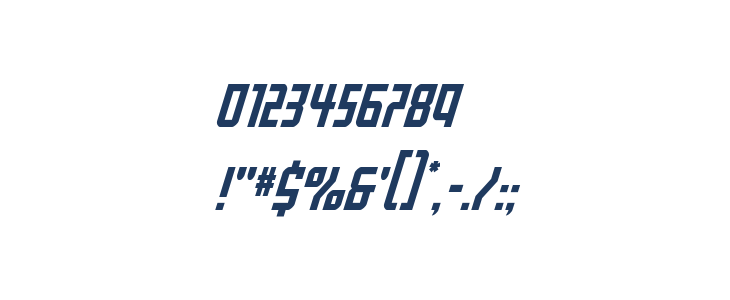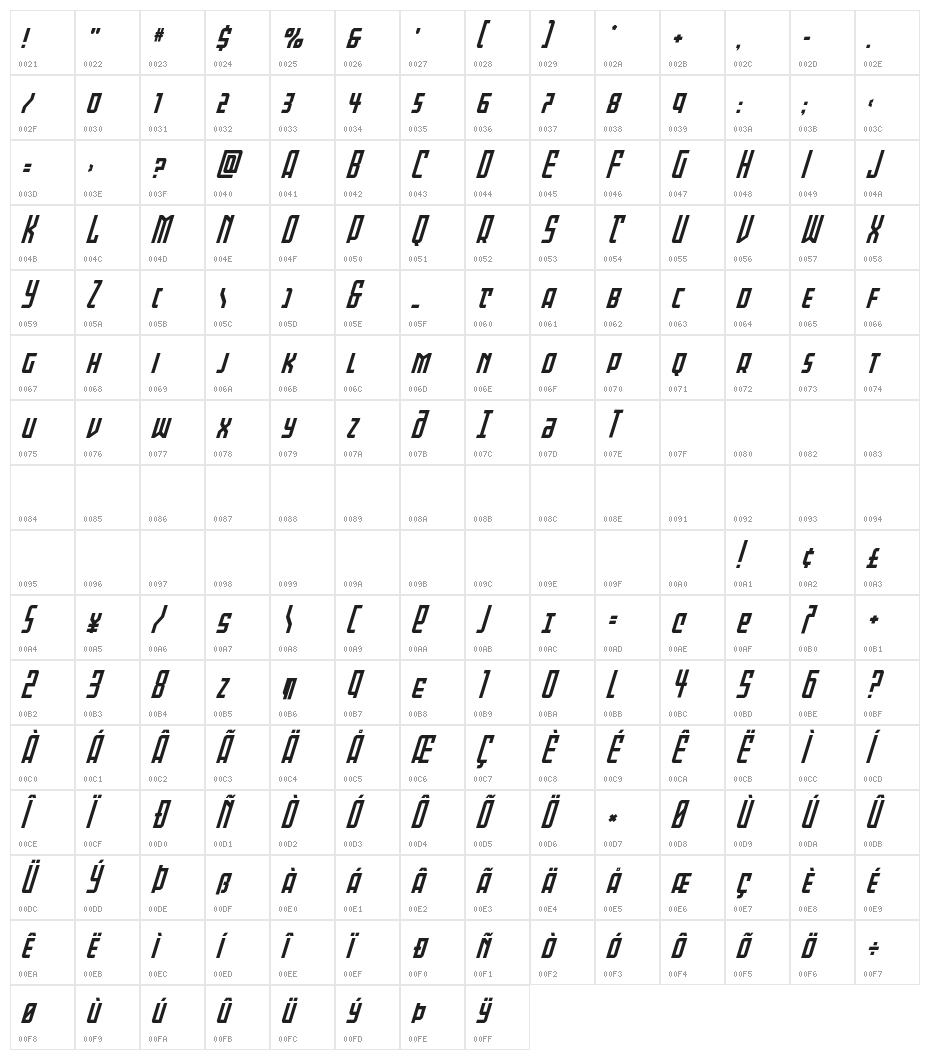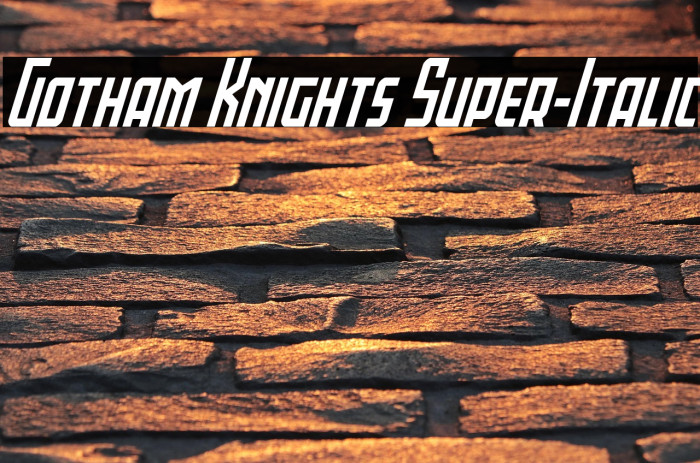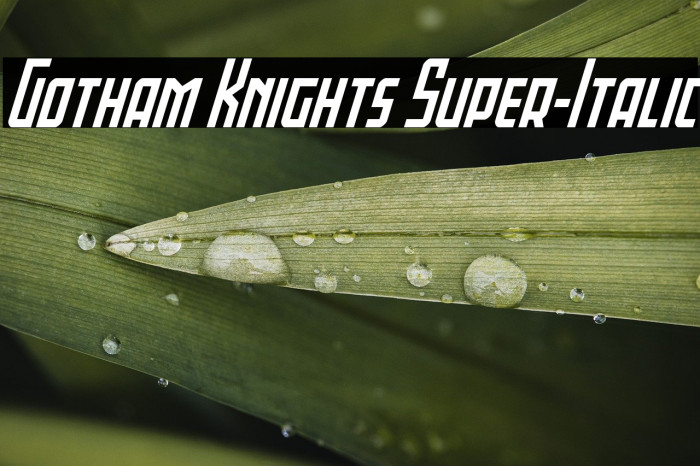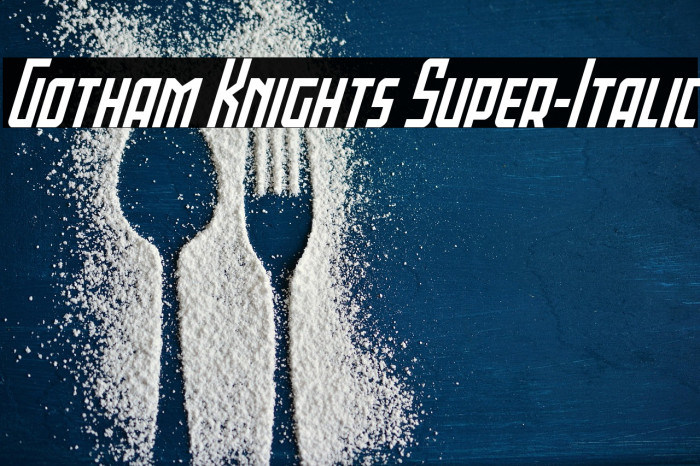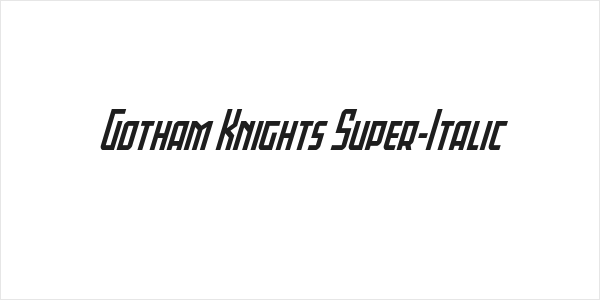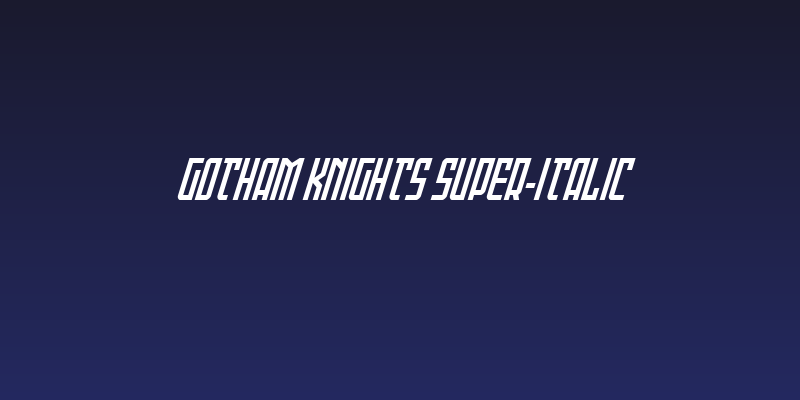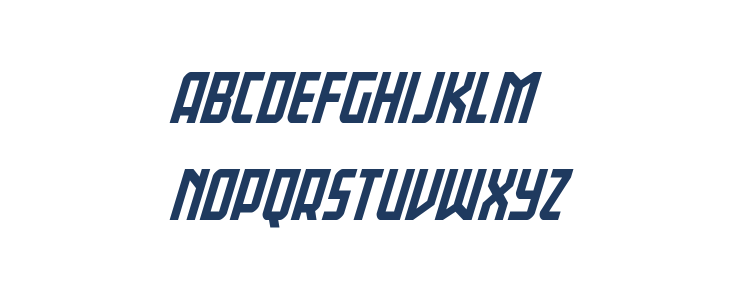
Gotham Knights Super-Italic Font
Gotham Knights Super-Italic Description
This font features a dynamic and angular design, characterized by its sharp edges and italicized form. The letters are slanted forward, giving a sense of motion and energy. The uppercase and lowercase characters maintain a consistent style, with a strong geometric influence. The numbers and special characters follow the same angular and italicized theme, ensuring uniformity across all glyphs. The font's boldness and unique style make it stand out, suitable for projects that require a modern and edgy look.
| Proposed Projects | Ideal for video game titles, sports branding, action movie posters, and dynamic logo designs. |